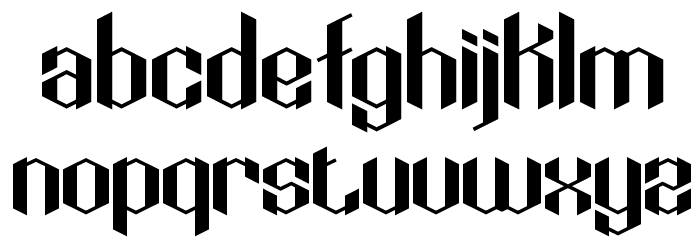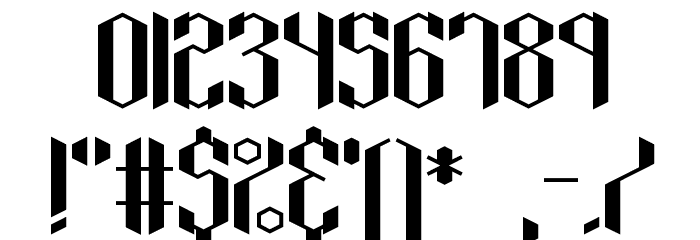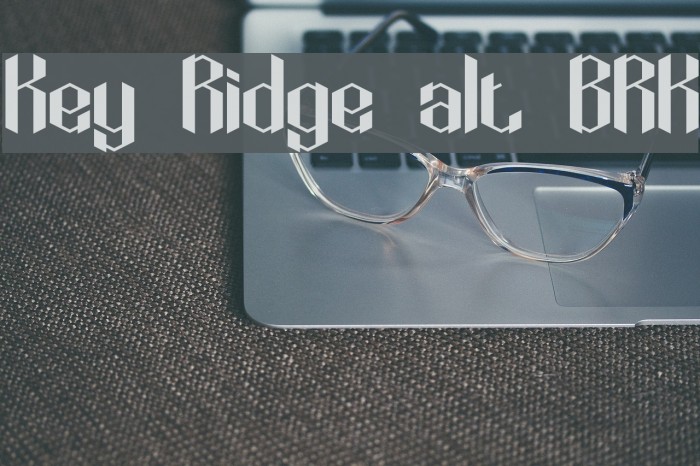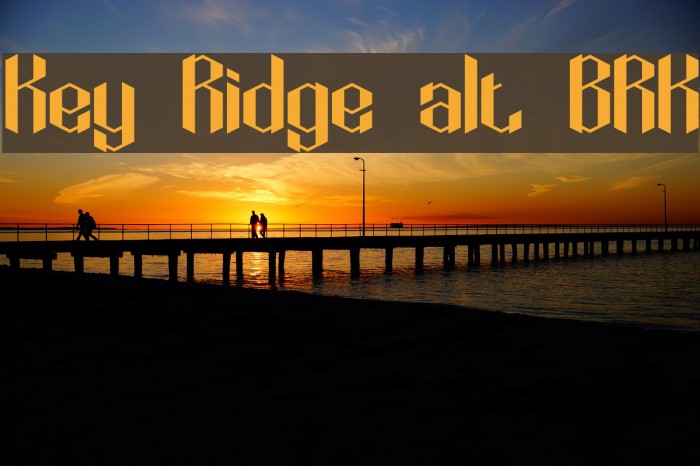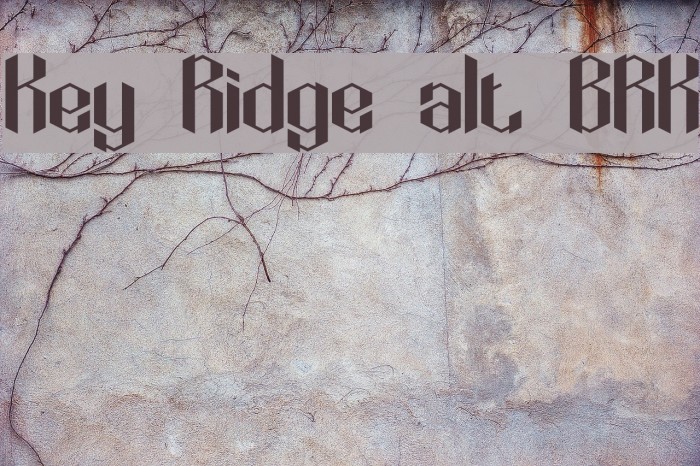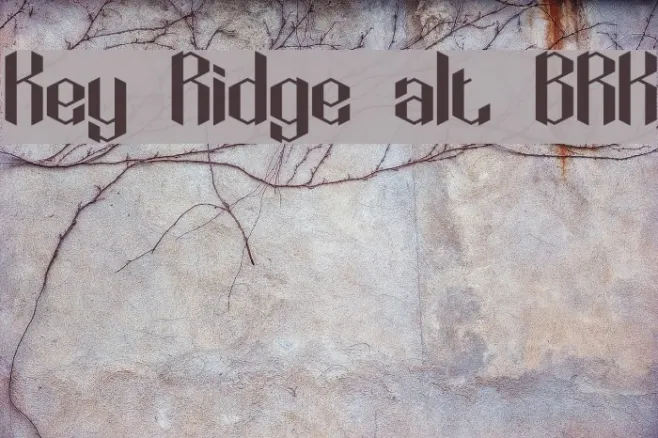
Key Ridge alt BRK Font
This font exhibits a bold and angular design, characterized by sharp edges and a geometric structure. The uppercase and lowercase letters maintain a consistent height, creating a uniform appearance. The characters are designed with a high level of contrast, featuring thick vertical strokes and thinner horizontal connections. The overall style is reminiscent of Gothic or Blackletter influences, with a modern twist that adds a unique flair. The numerals and special characters follow the same angular and bold design, ensuring consistency across all glyphs. This font is visually striking and commands attention, making it suitable for impactful designs.
A bold, angular font with Gothic influences and high contrast.
- Overall Style: Modern Gothic